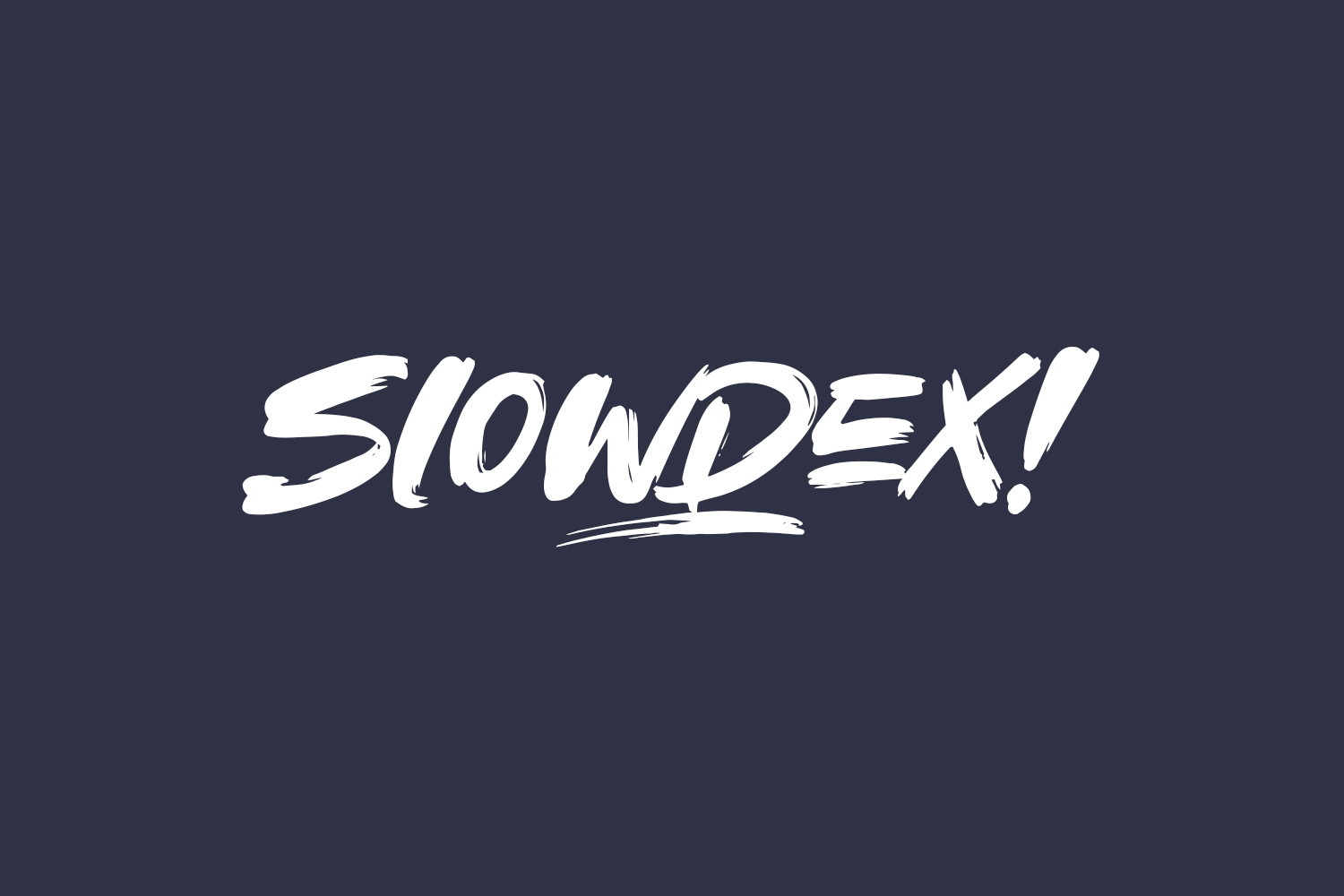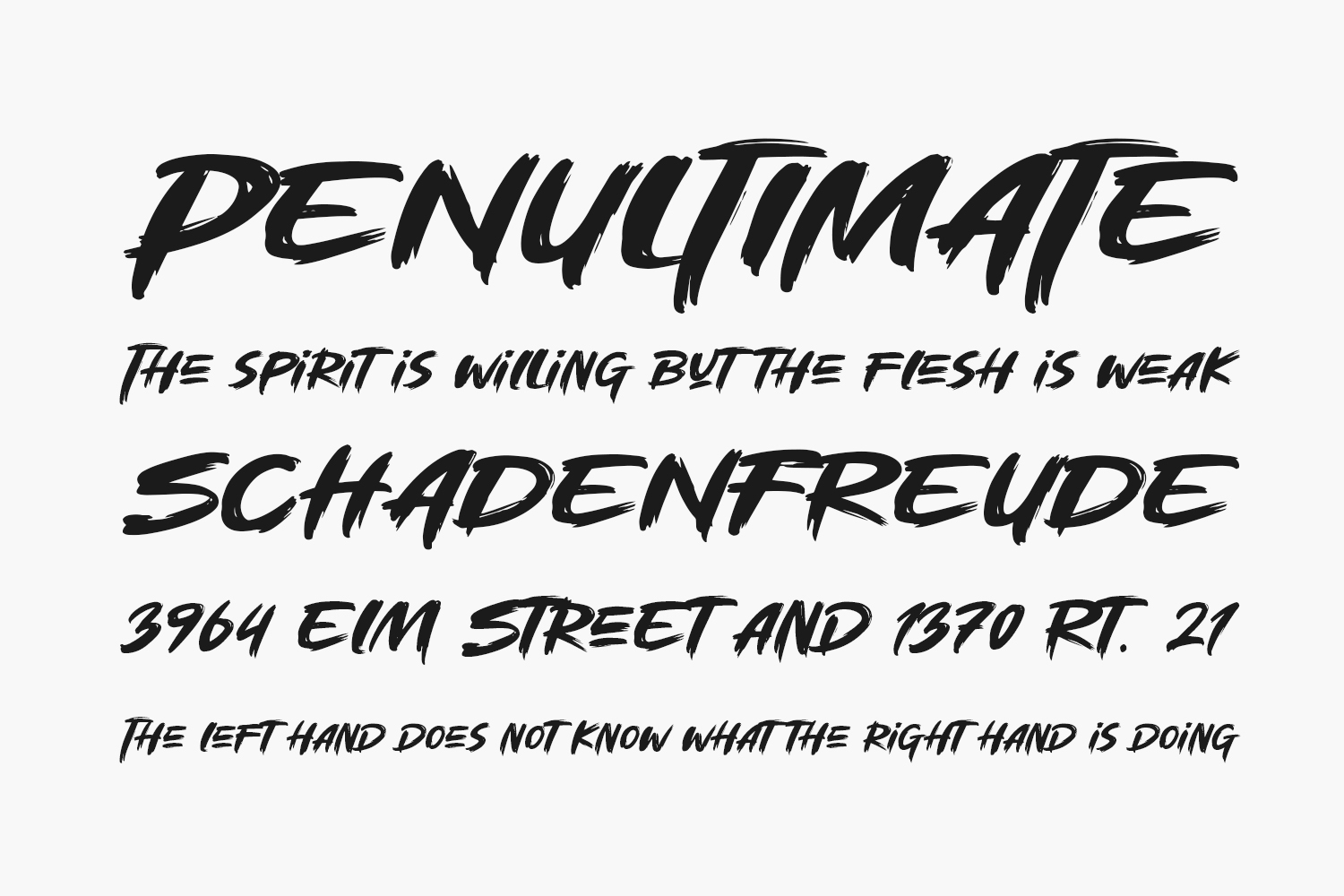
Slowdex Free Font, a contemporary brush font, is ideal for a variety of design projects such as posters, logos, magazines, book covers, banners, and more! Enhance your creative endeavors with this charming handwritten font. Its versatility seamlessly complements a vast array of projects, ensuring that it adds a distinctive touch to your creative ideas, making them truly stand out. Download the font for free if you need it for personal use or purchase the full version for commercial use.